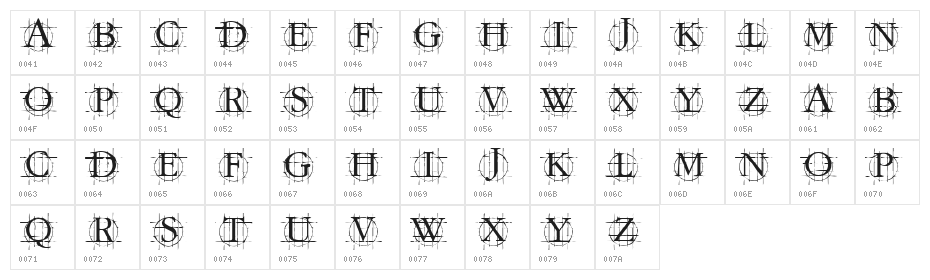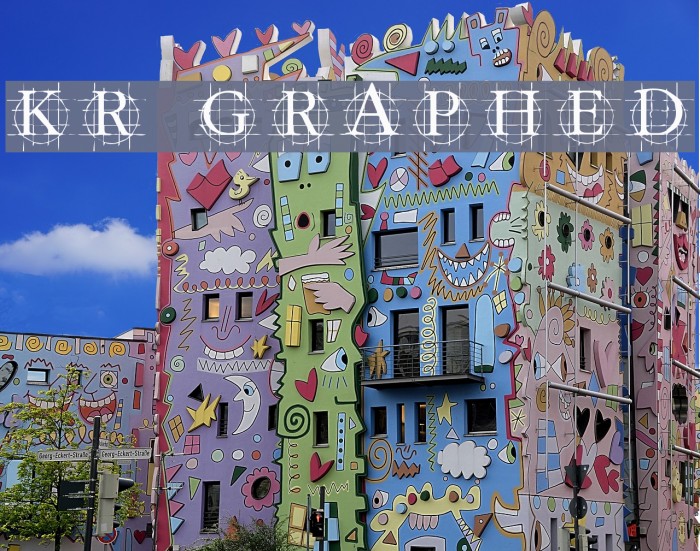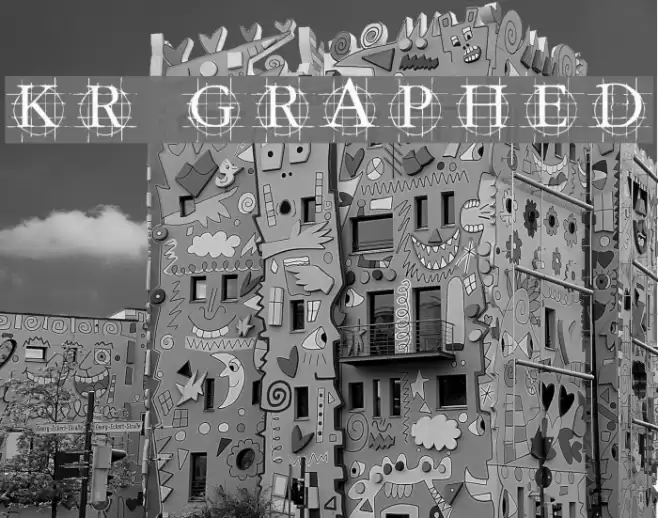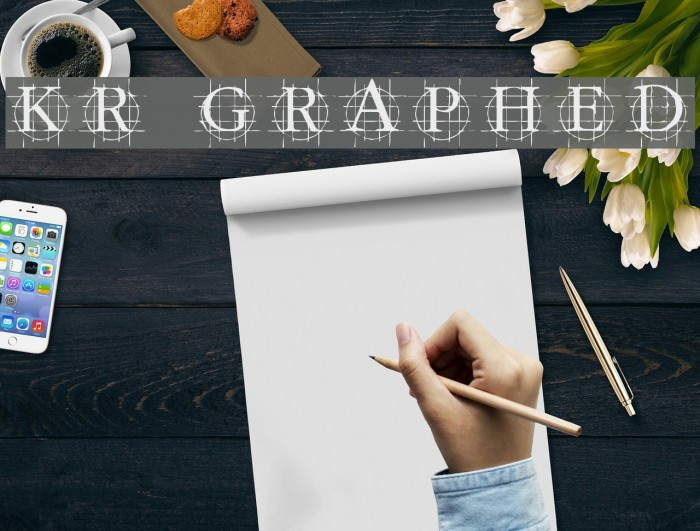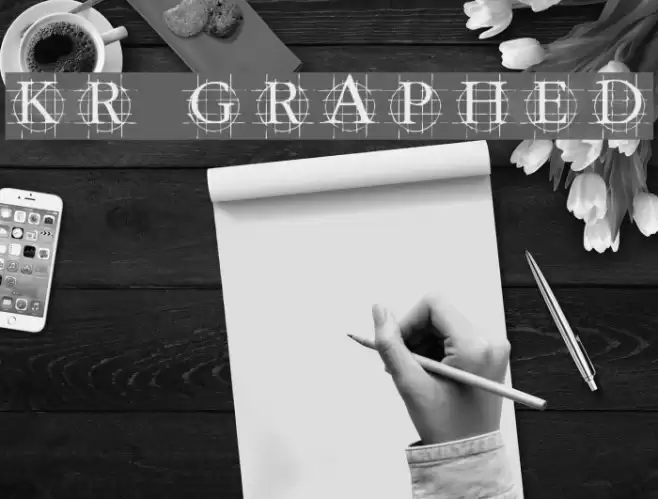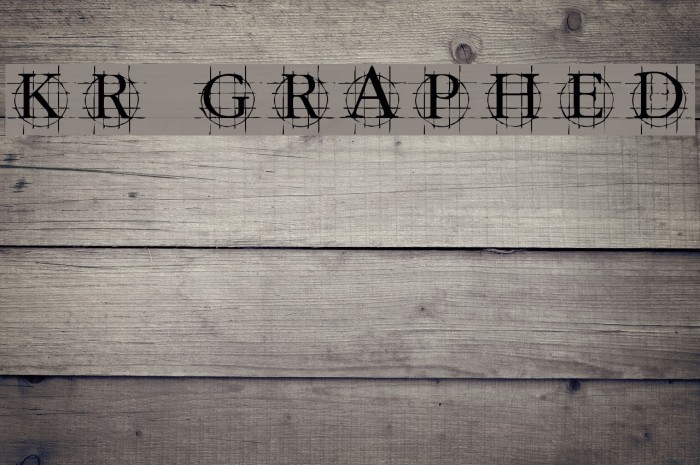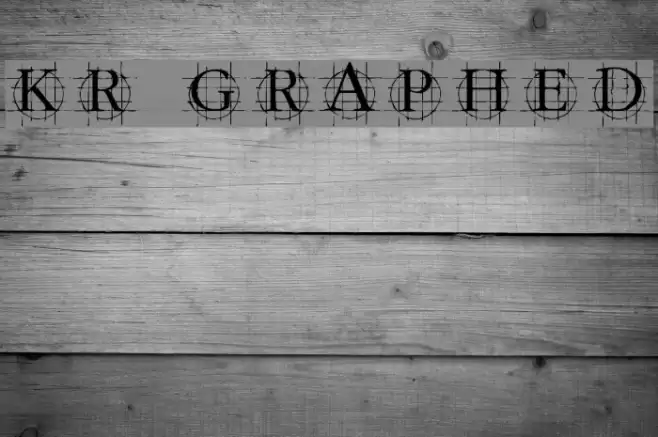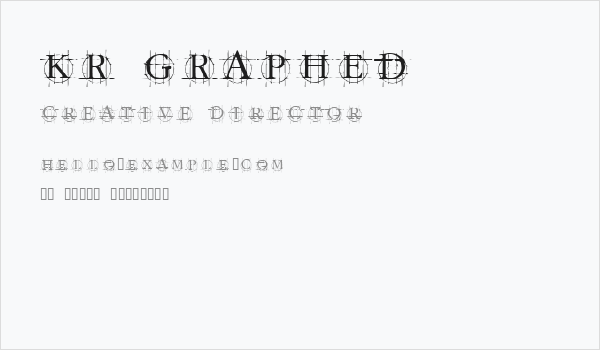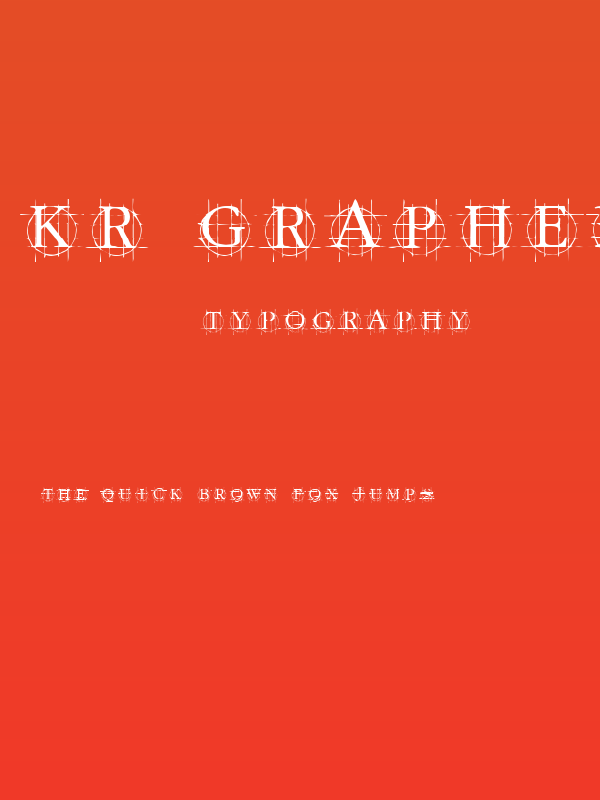
KR Graphed Font
KR Graphed Description
This font features a unique, graph-like design with each character enclosed within a grid structure. The letters are bold and geometric, with a technical and architectural feel. The uppercase and lowercase letters maintain a consistent style, emphasizing precision and symmetry. The numbers and special characters follow the same structured pattern, making the font suitable for projects that require a modern and technical aesthetic. The overall appearance is both decorative and functional, ideal for designs that aim to convey a sense of innovation and structure.
| Proposed Projects | Ideal for architectural presentations, technical manuals, modern branding, and innovative product packaging. |